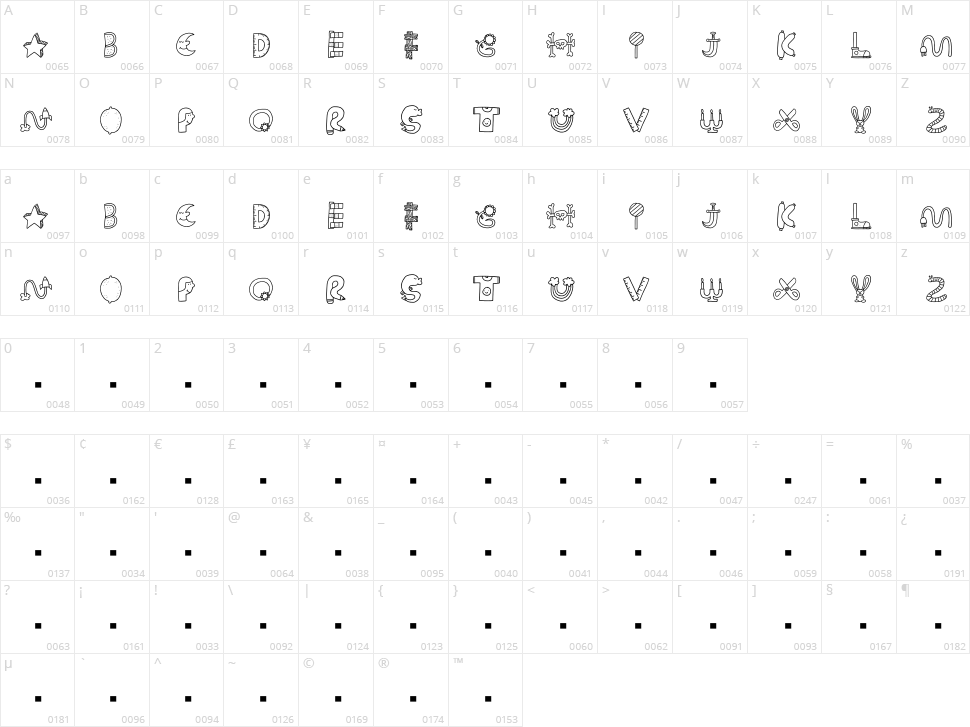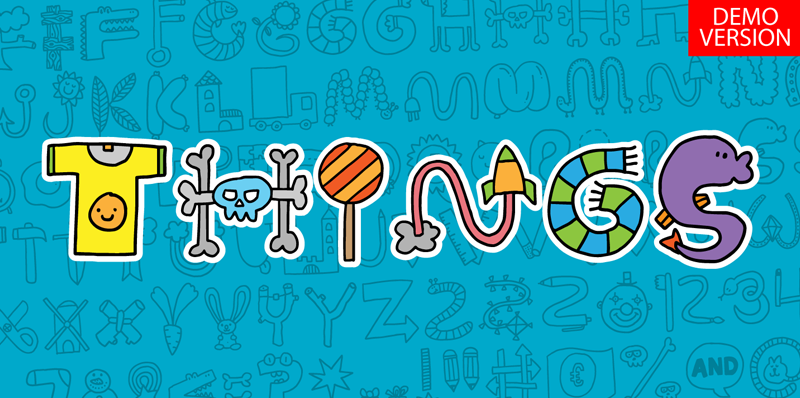
Things
All letters are made of different drawings. The FULL version has 4 different versions of each letter, as well as full punctuation and multilingual support